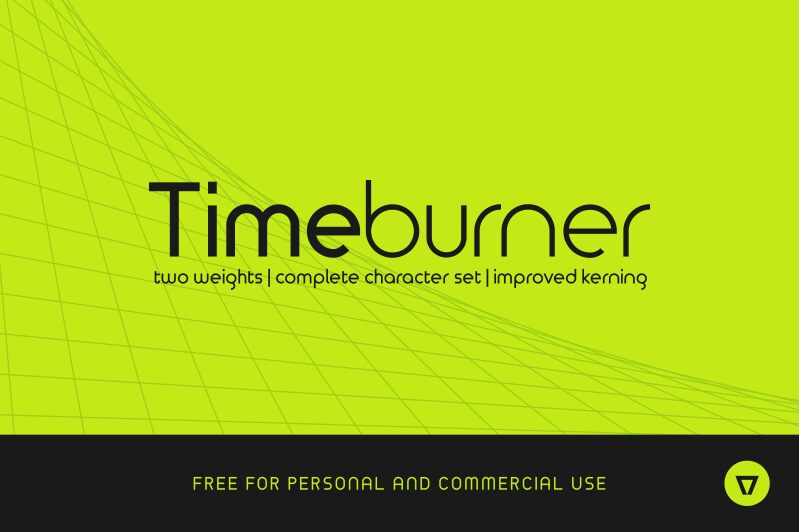
Time Burner, designed by Andres Moreno Walter in 2012, is a free geometric sans serif with extremely light, even strokes and tall, spacious proportions across both broad and narrow letters. Broad circular curves give the lettering its most recognizable feature.
Editorial covers are a particularly good match for its refined scale and airy drawing, and those same qualities suit gallery posters, fashion branding, and cultural event graphics with a clean, understated direction. Its strongest role is editorial, where the long lines, round forms, and restrained stroke weight make an elegant masthead for magazines about art, architecture, or contemporary design.
The new version includes two weights, a complete Western character set, and improved kerning.